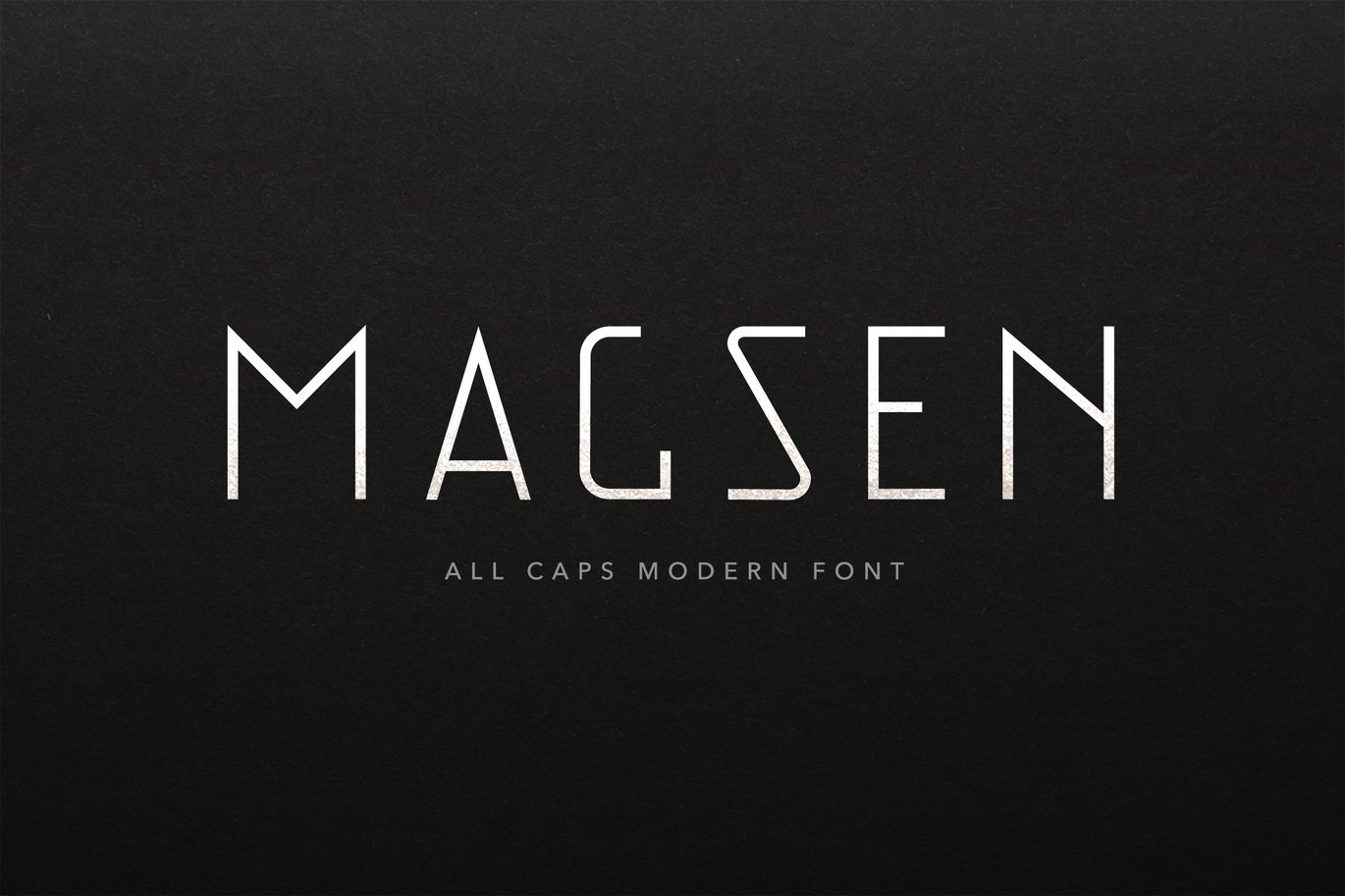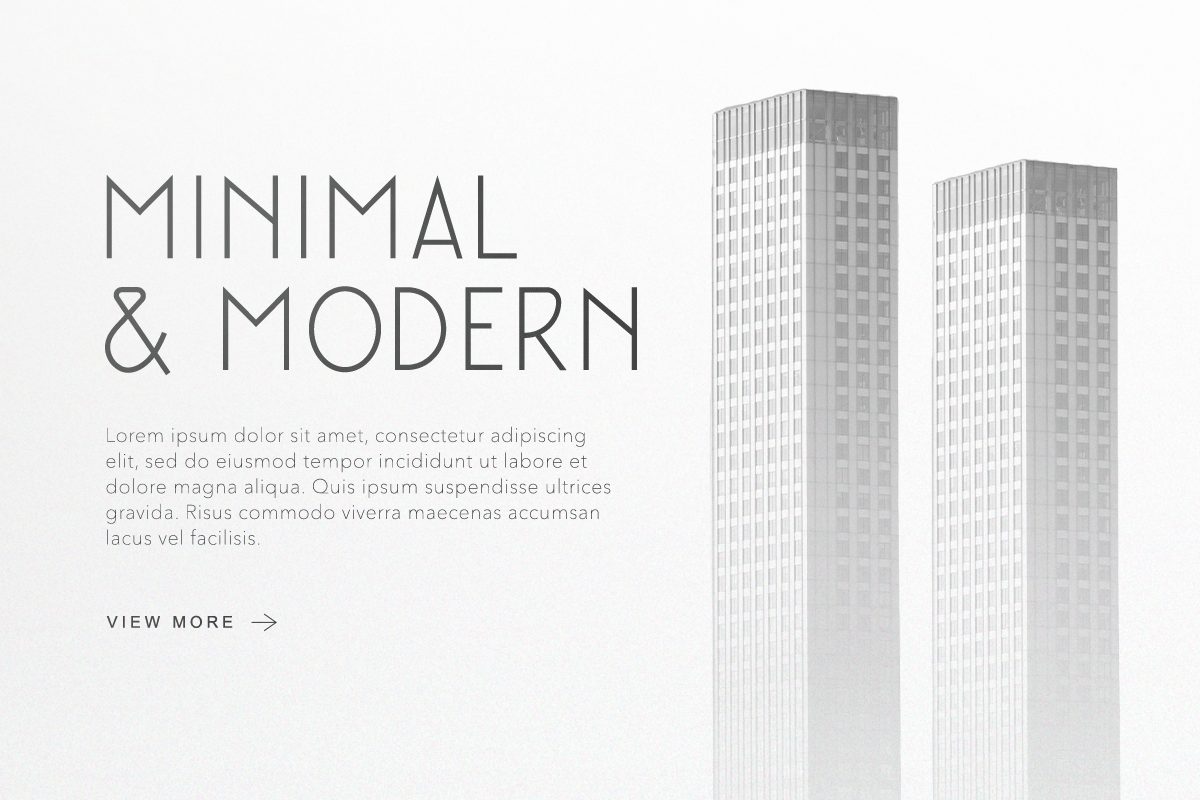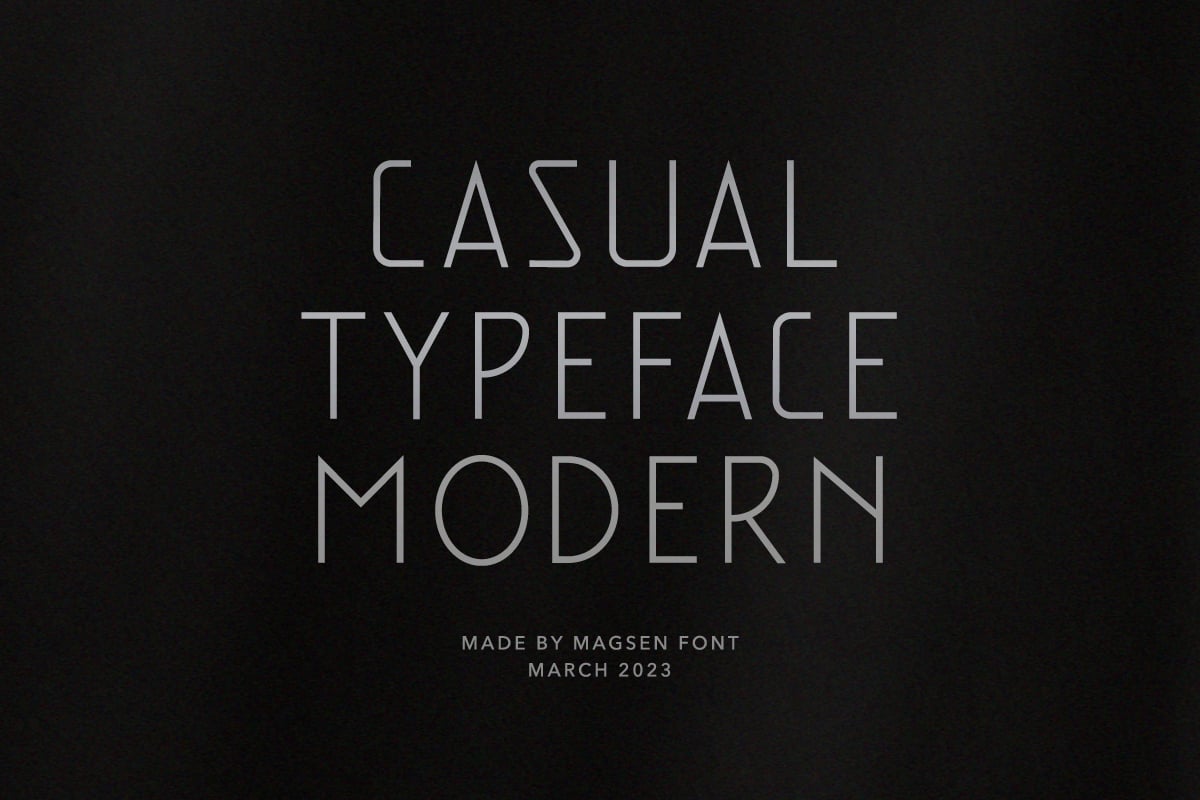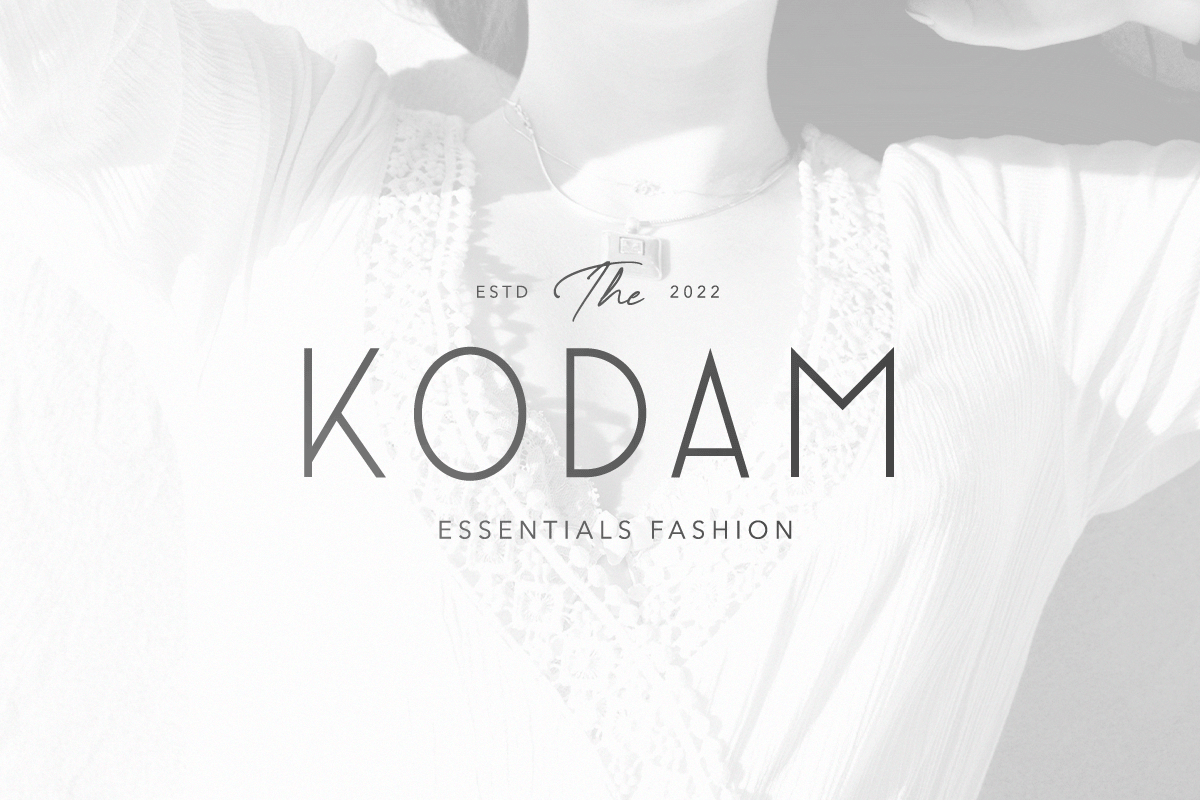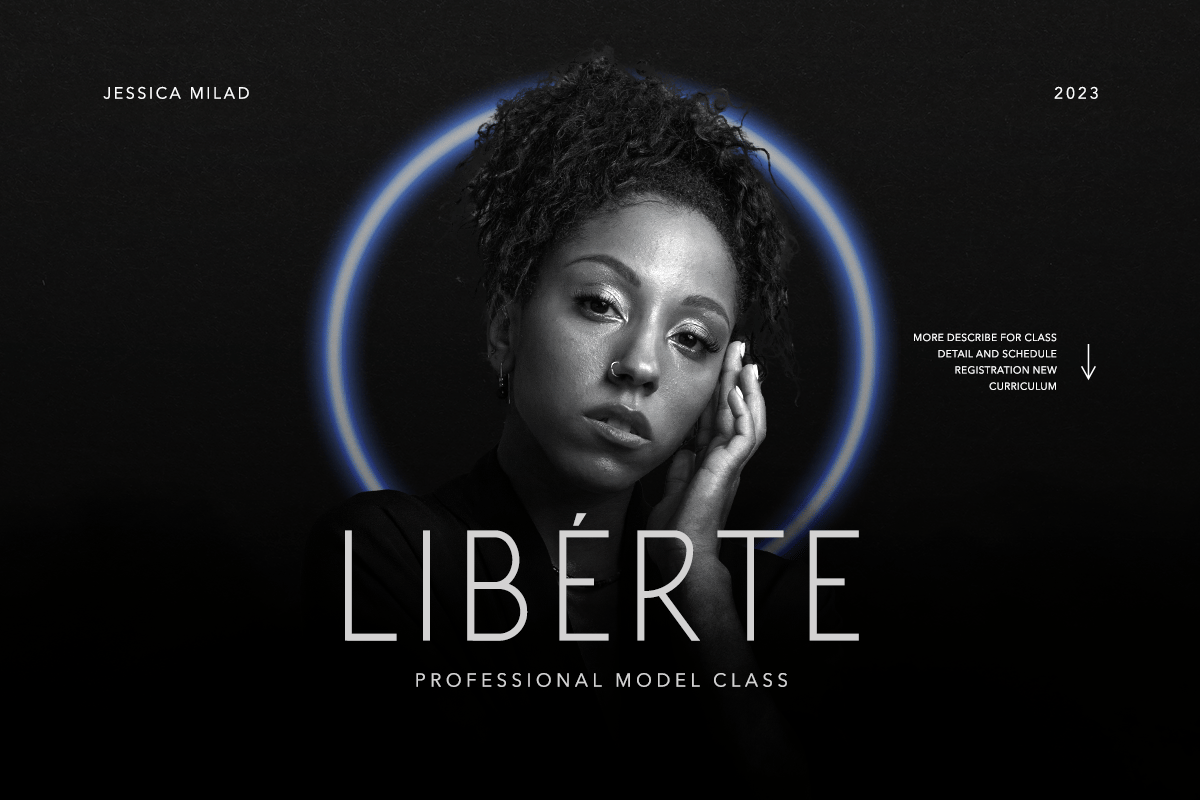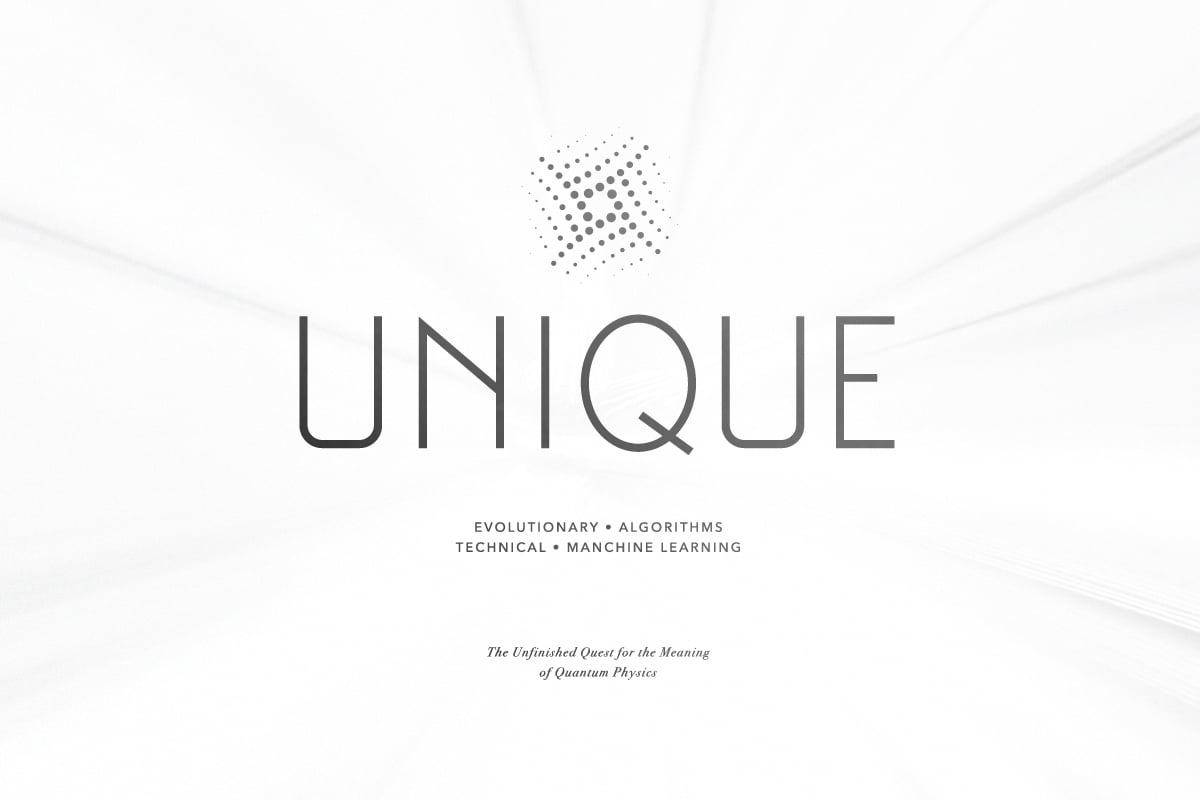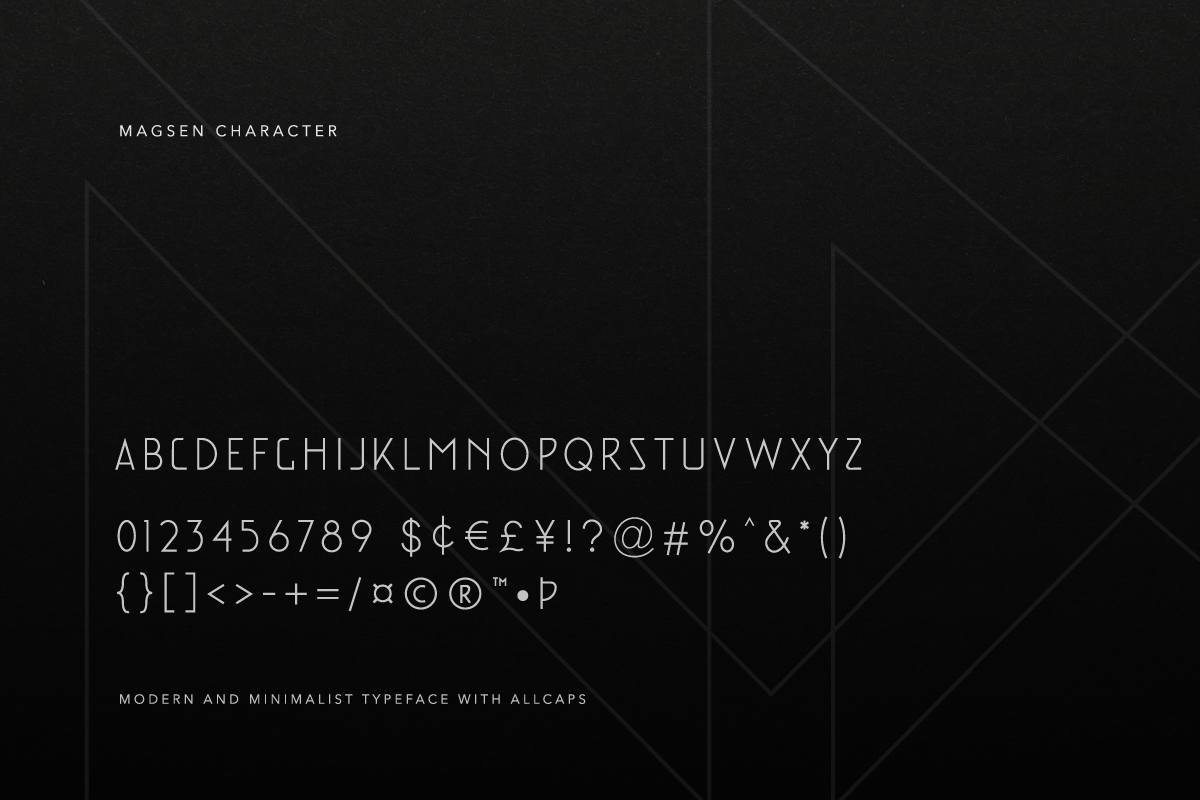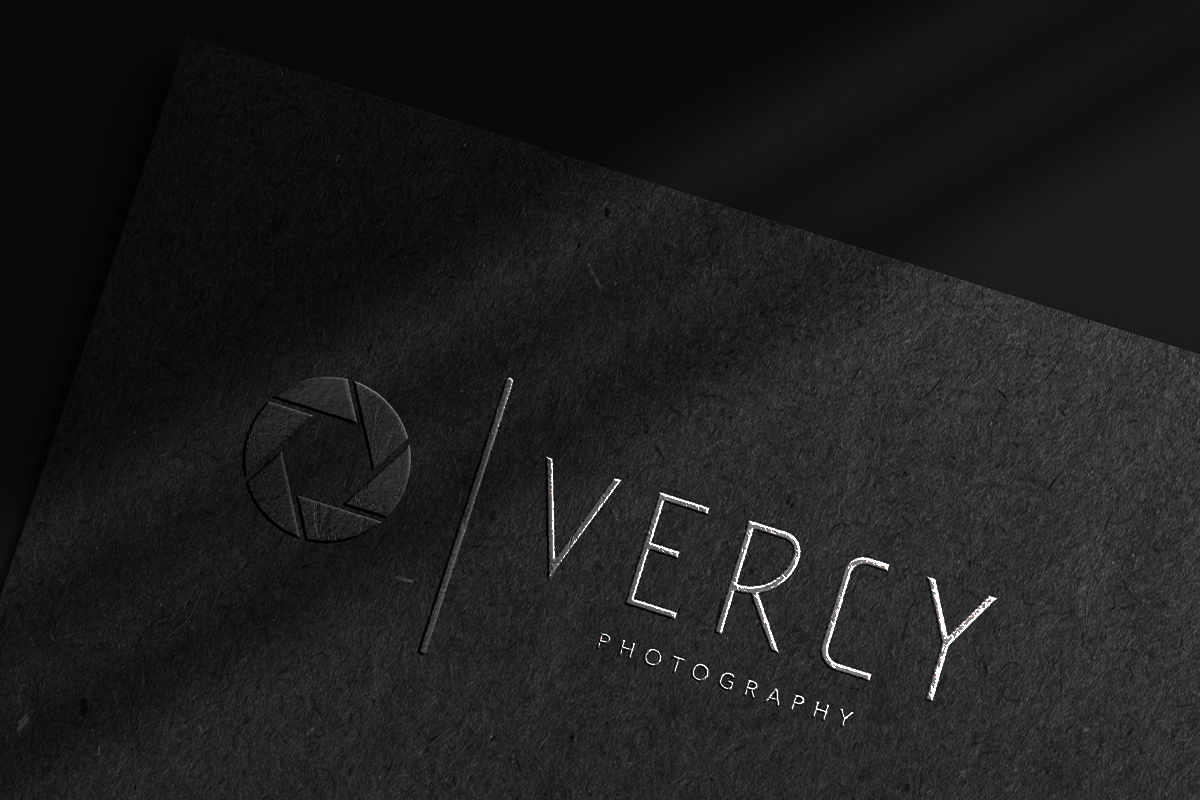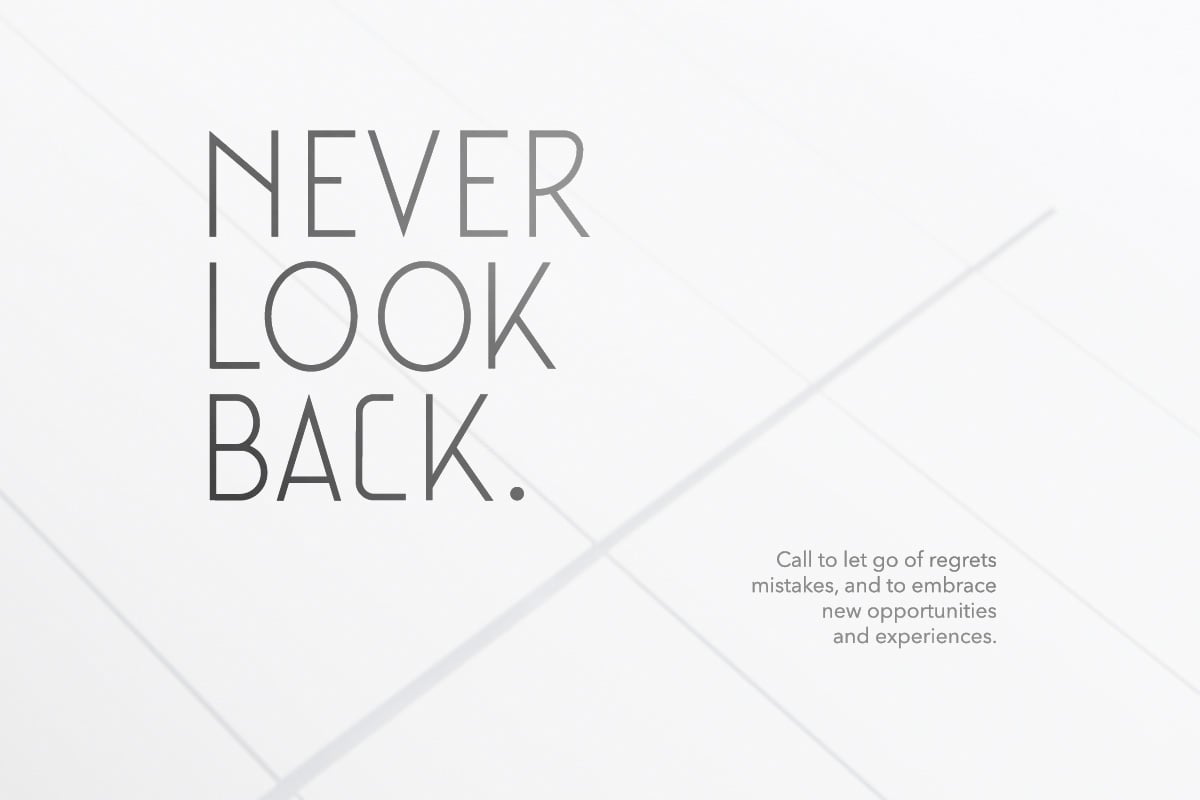
Magsen – Modern Font
Magsen is a modern sans serif font that offers a perfect combination of elegance, minimalism, and a semi-technological vibe. This font has been crafted with a focus on simplicity, clean lines, and a contemporary aesthetic, making it an ideal choice for designers seeking a modern and minimalist look.
- All Caps Font